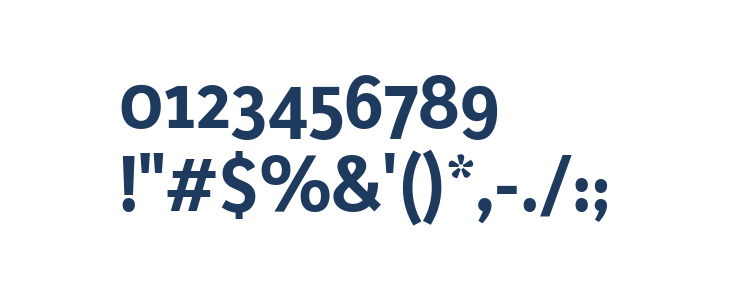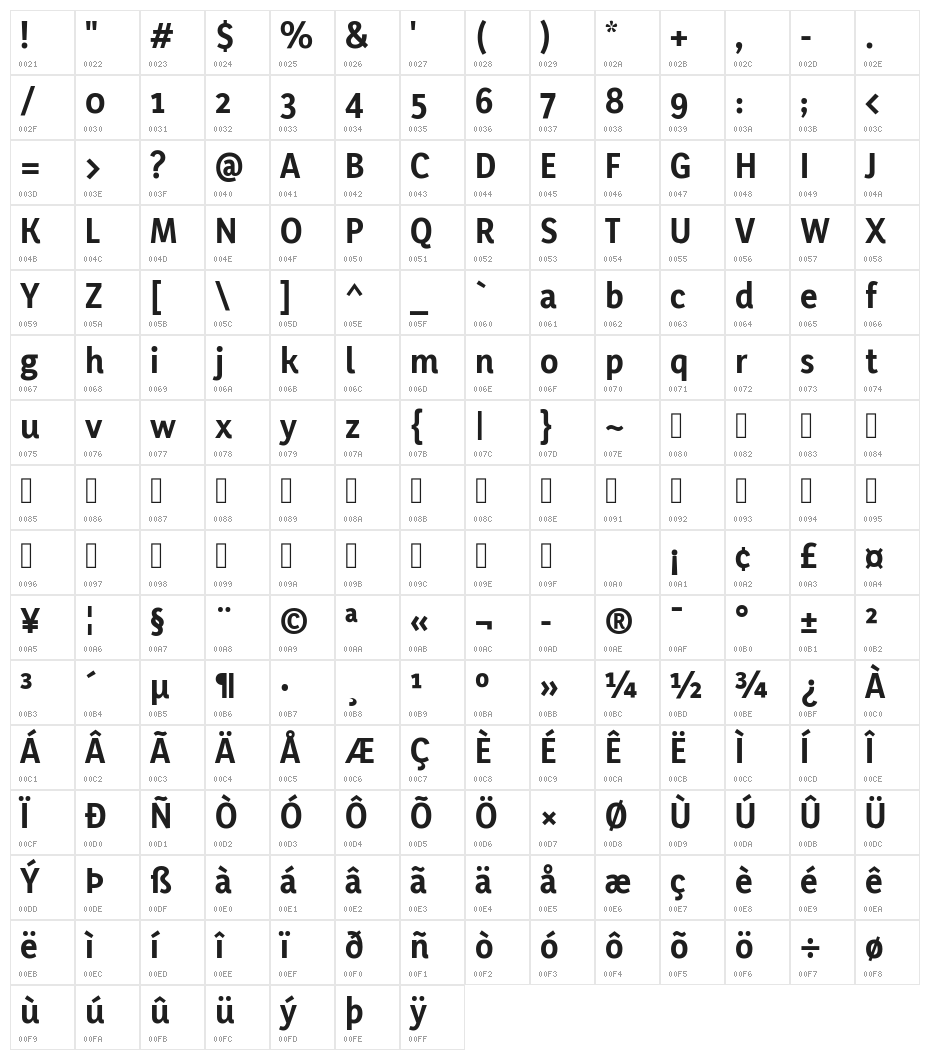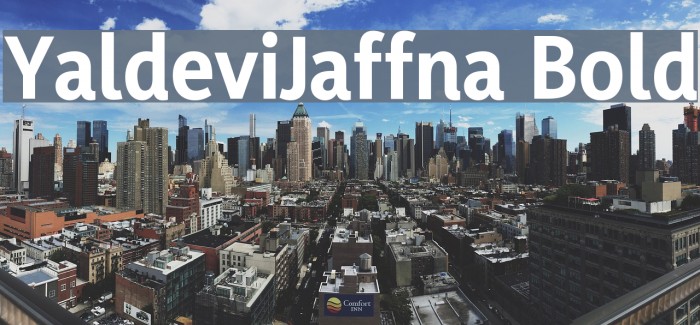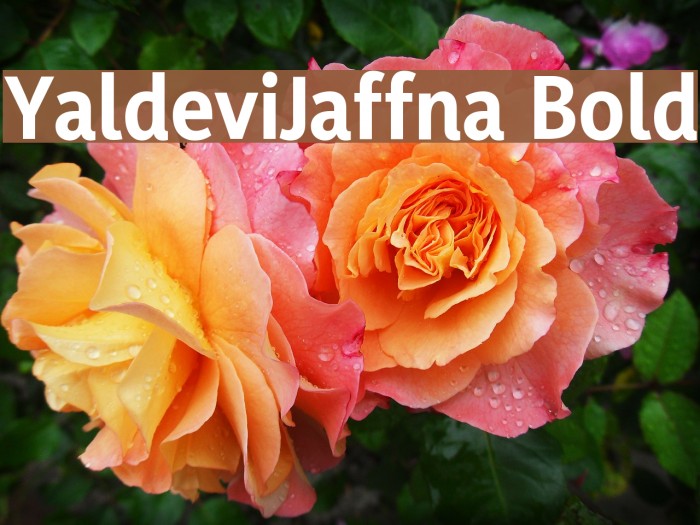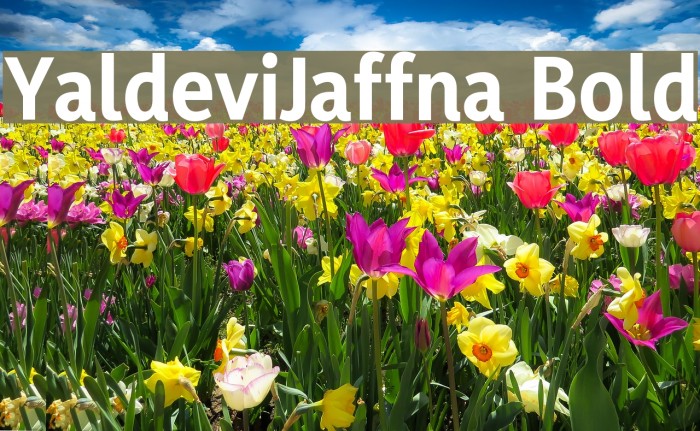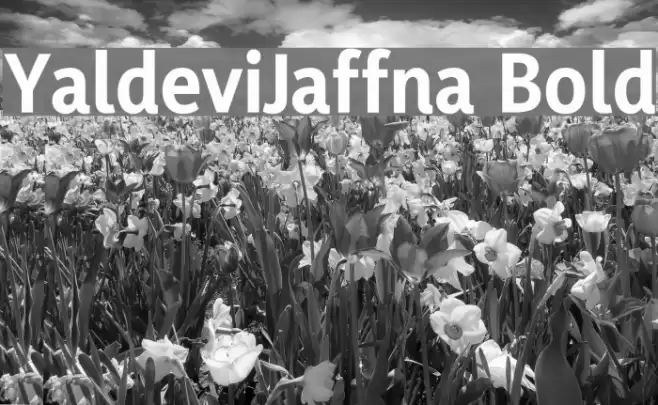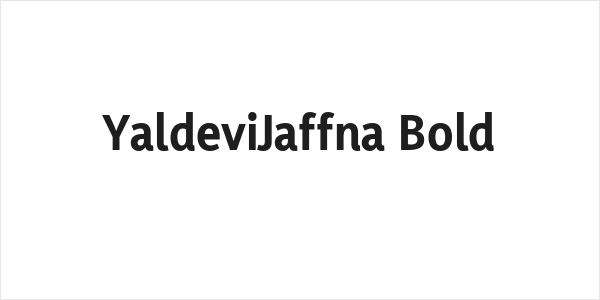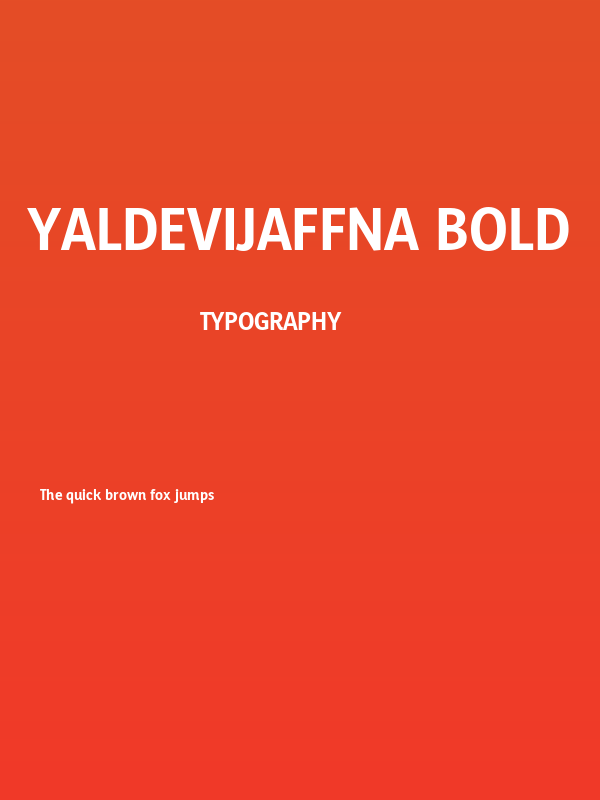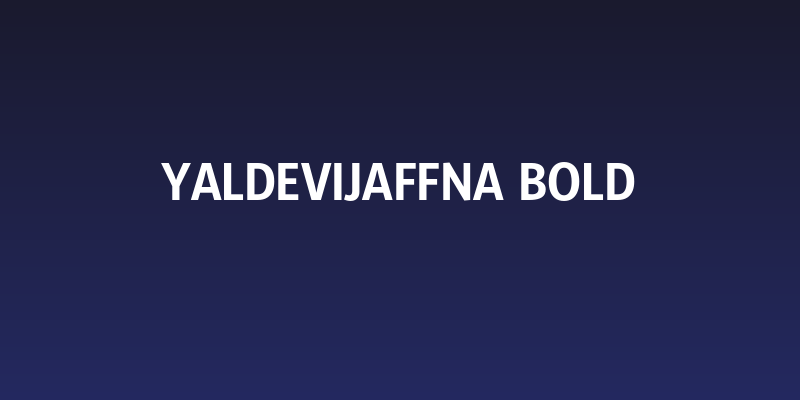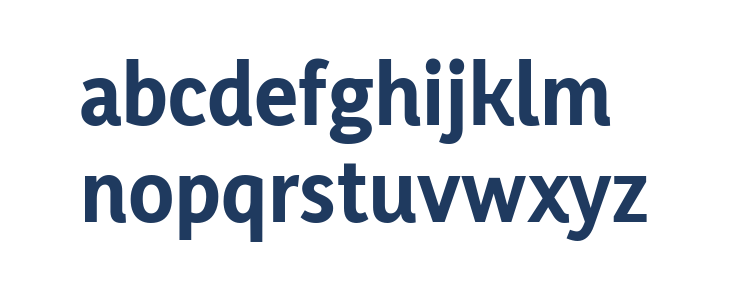
YaldeviJaffna Bold Font
YaldeviJaffna Bold Description
This font features a bold and clean sans-serif style, characterized by its strong geometric shapes and uniform stroke widths. The uppercase letters are tall and assertive, while the lowercase letters maintain a consistent height, providing a harmonious balance. The numerals are clear and easily distinguishable, making them suitable for various applications. The special characters are well-defined, ensuring readability and versatility. Overall, this font exudes a modern and professional appearance, making it ideal for both digital and print media.
| Use Case | Headlines, Logos, Web design |
| Proposed Projects | Ideal for branding, advertising, web design, and editorial projects. |